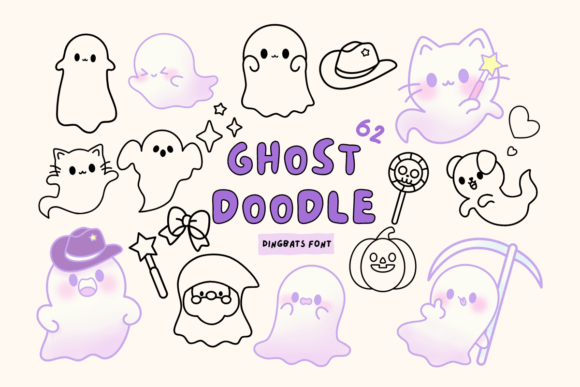
Introducing Ghost Doodle Font, the whimsical typeface that will bring a touch of adorable charm to your designs. Created by Babymimiart, this font is perfect for adding cuteness to a variety of creative projects. Whether you're designing children's books, logos, or greeting cards, Ghost Doodle Font will infuse your work with a delightful sense of joy and lightheartedness.
With its adorable ghost-inspired doodles, Ghost Doodle Font is the ultimate choice for art websites. Its playful and captivating design will instantly catch the eye of users looking to buy fonts that add a unique and artistic touch to their projects.
Imagine the smiles on children's faces as they read a story written in Ghost Doodle Font. The endearing ghost decorations will transport them to a whimsical world, making the reading experience even more enjoyable. And for those designing logos, Ghost Doodle Font will help your brand stand out from the crowd, leaving a lasting impression on potential customers.
But Ghost Doodle Font is not just for children's books and logos. Its versatility allows it to be used in a wide range of creative projects. From greeting cards that spread warmth and cheer, to social media graphics that capture attention, Ghost Doodle Font is the perfect choice for anyone seeking to add a touch of playfulness to their designs.
When you download Ghost Doodle Font, you're not just getting a typeface – you're getting a tool that sparks creativity and imagination. Its unique and captivating design will inspire you to create designs that are truly one-of-a-kind.
So why wait? Take your designs to the next level with Ghost Doodle Font. Let the charming ghost doodles captivate your audience and breathe life into your creative projects. Whether you're a seasoned designer or just starting out, Ghost Doodle Font is the perfect choice for adding a touch of whimsy and cuteness to your work.